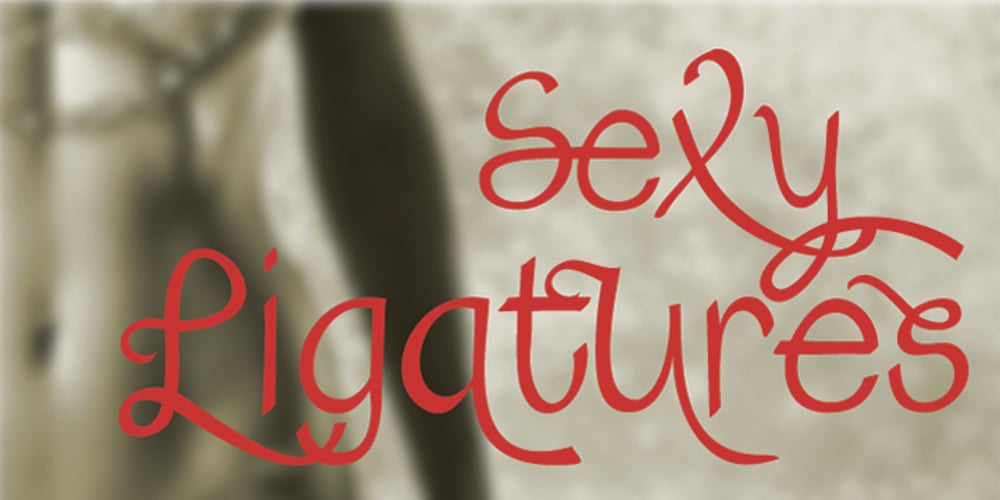
Belha
Belha font
Belha Font Family was designed by Carine de Wandeleer and published by Eurotypo. Belha contains 1 styles and family package options. Sometimes we feel that we need something fresh, sometimes you may use something like an informal style, or even a little bit of spicy taste in a provocative message. Belha is a curly cursive typeface that can express a seductive atmosphere of casual style. All their glyphs were made carefully and were hand-drawn. The font contains different letter shapes, full of ligatures, swashes and stylistic alternates that can provide great flexibility for your designs. Belha includes diacritics signs for CE languages. It may be used for advertising, packaging design, flyers, posters, children books and many other purposes. How it will work, just depends on you.